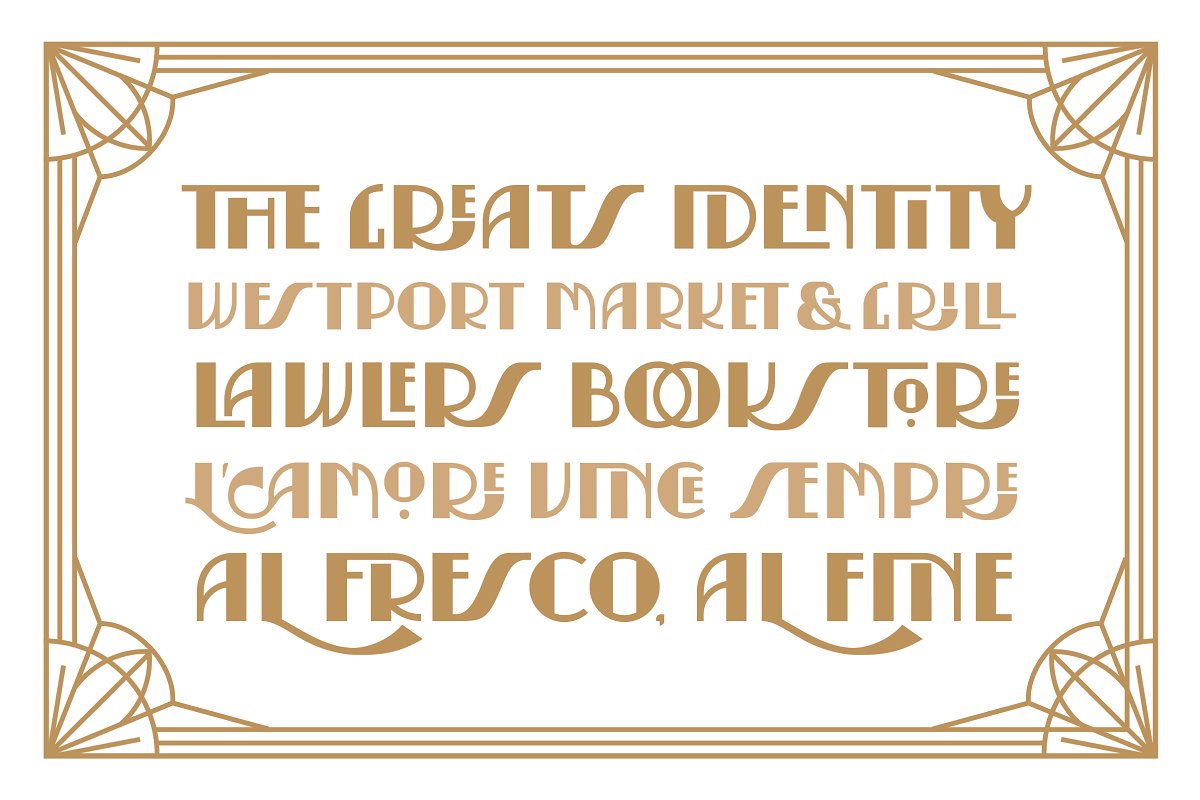
About the Serendior + Seamless Patterns
Serendior | Art Deco Font & Seamless Pattern, Introducing this new beautiful font & pattern set from Zeune Ink Foundry, Serendior, Inspired by Art Deco movement and its decorative arts that originated in the 1920s, Serendior is formed of Constructivism and Futurism, and the unifying style of Art Deco, crafted with care with a bunch of special character sets that wrapped in unique discretionary ligatures and stylistic sets
Serendior consists of two styles, Block and Stroke, Contain more than 400+ glyphs with multi-language support, Serendior came with 12 beautiful patterns that made of one vintage solid color, you can use them for various projects, the patterns are easy to scale up or down without a loss in quality, you also can change colors and create lots of unique variations of these patterns